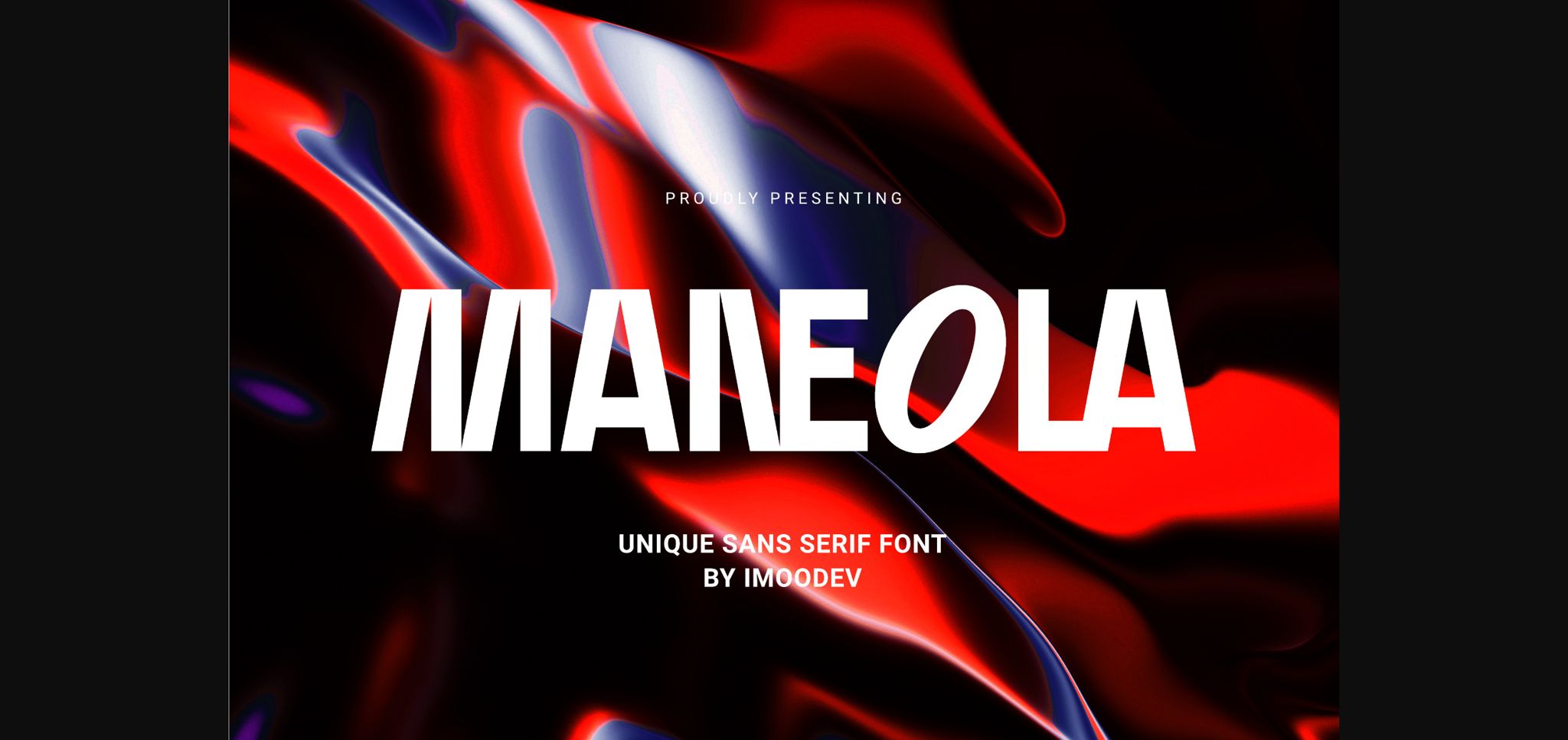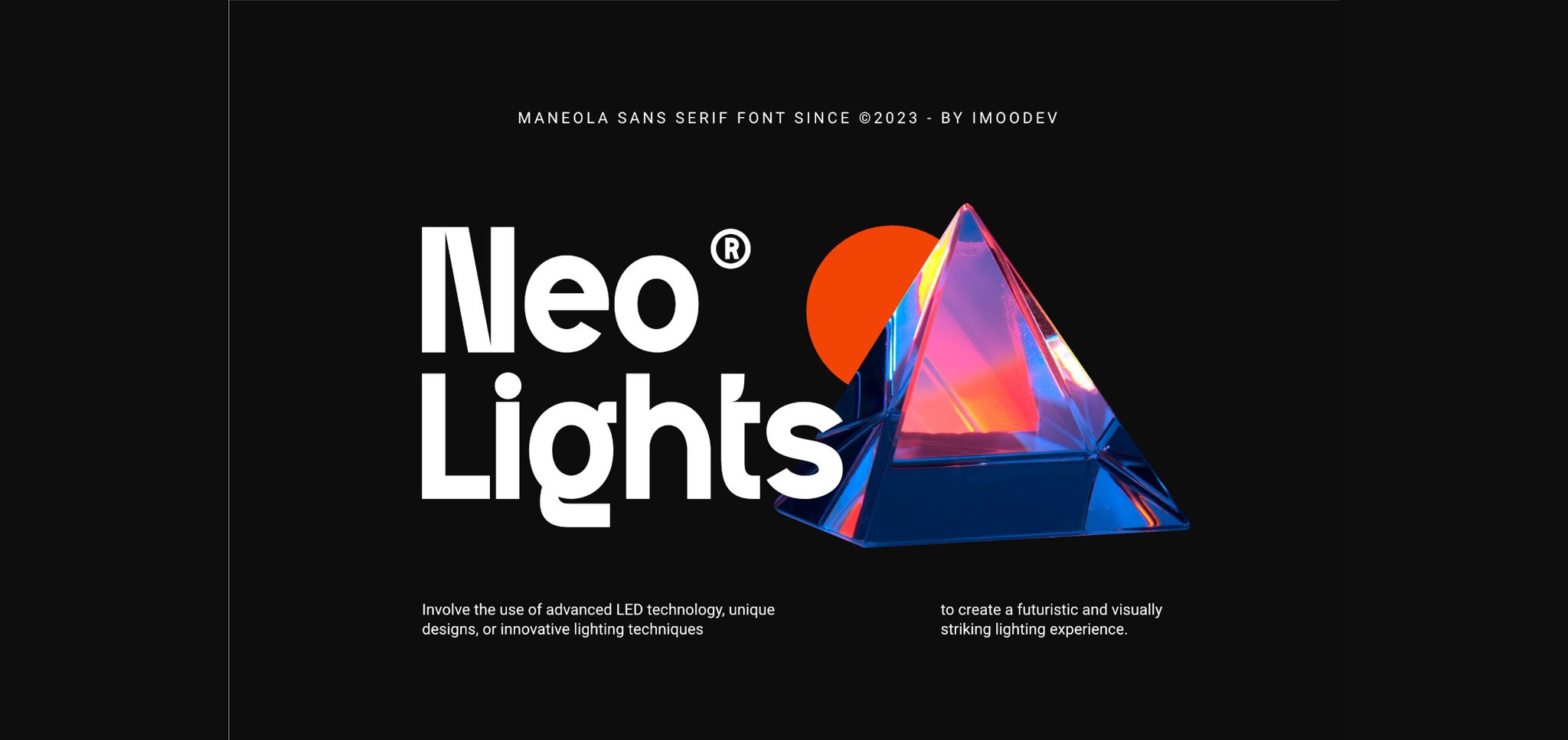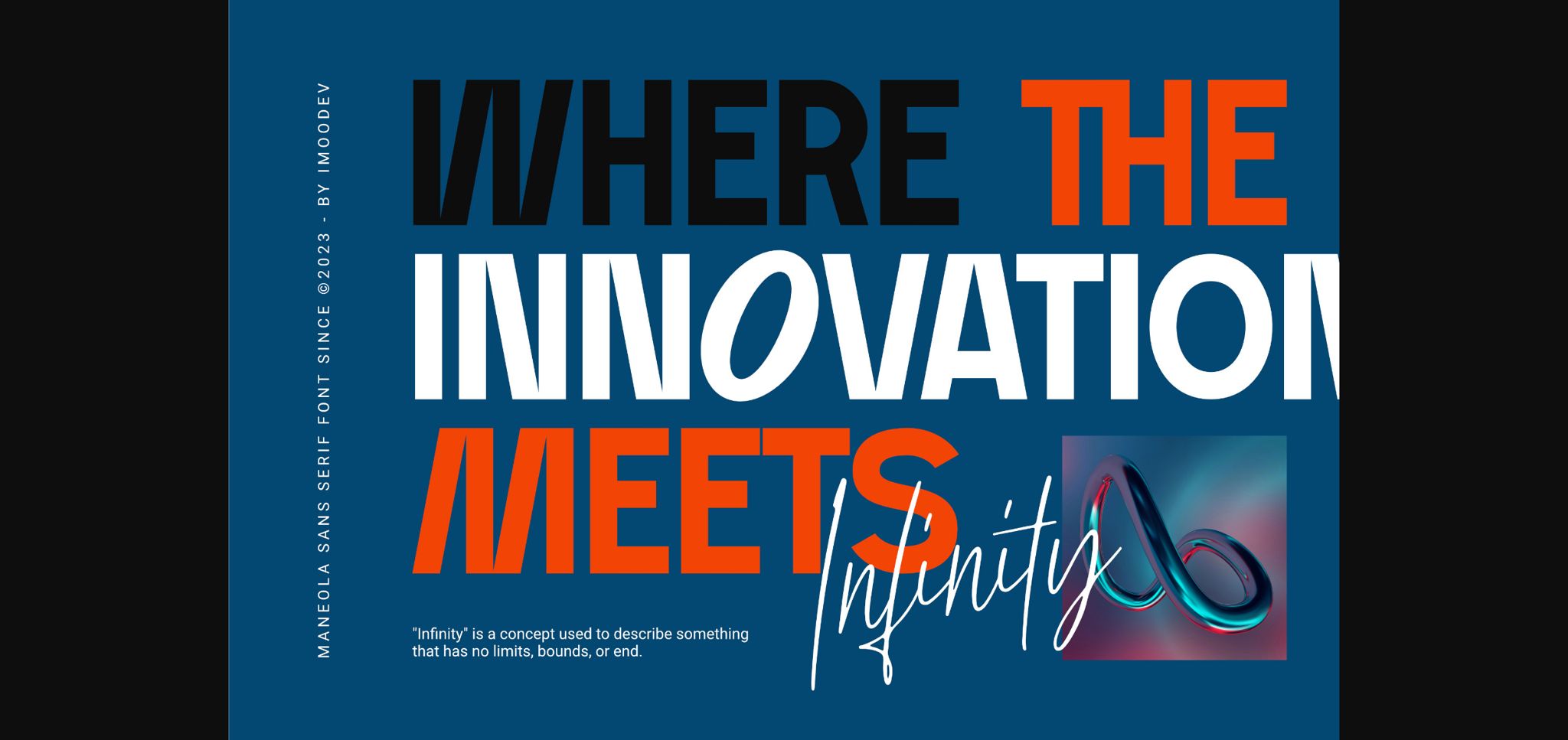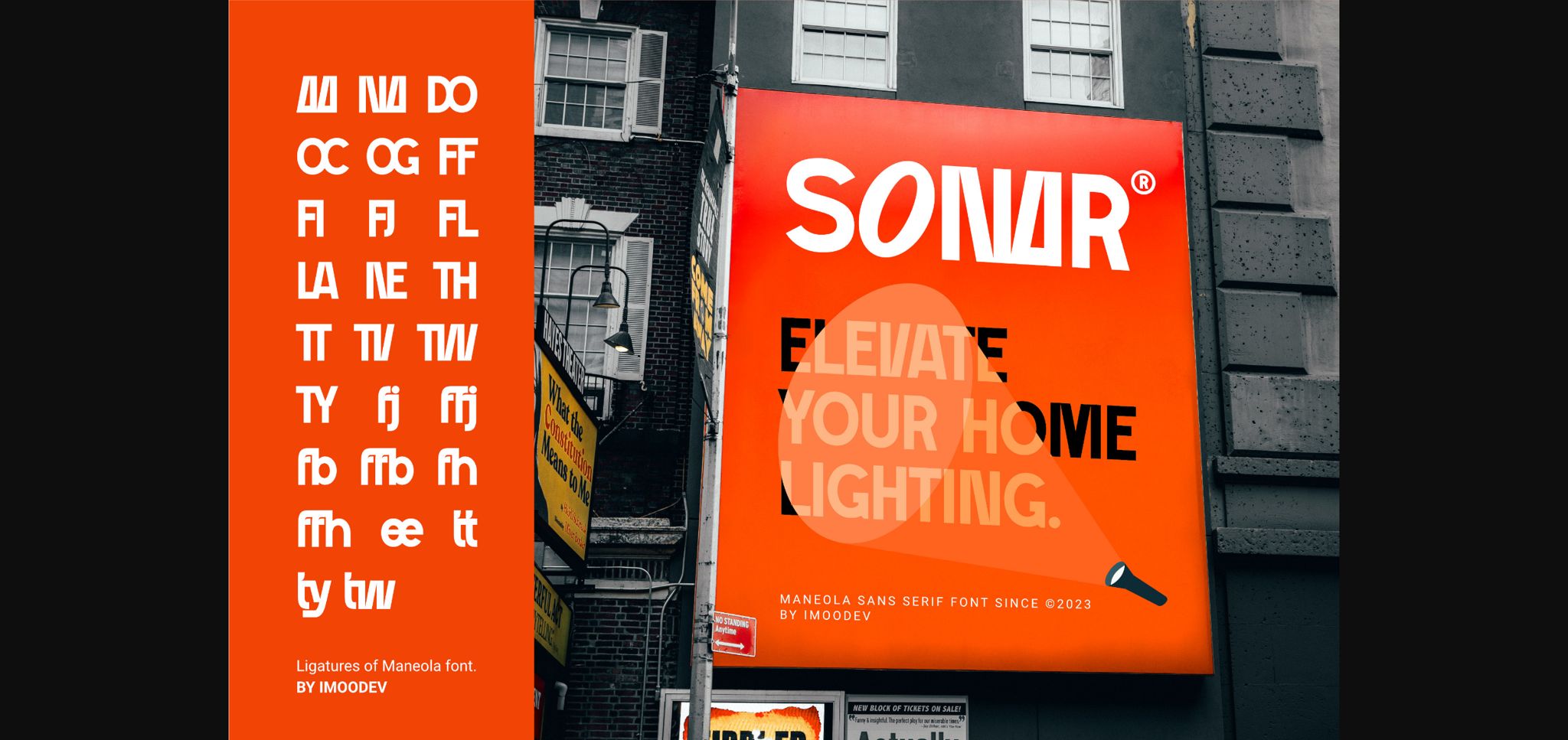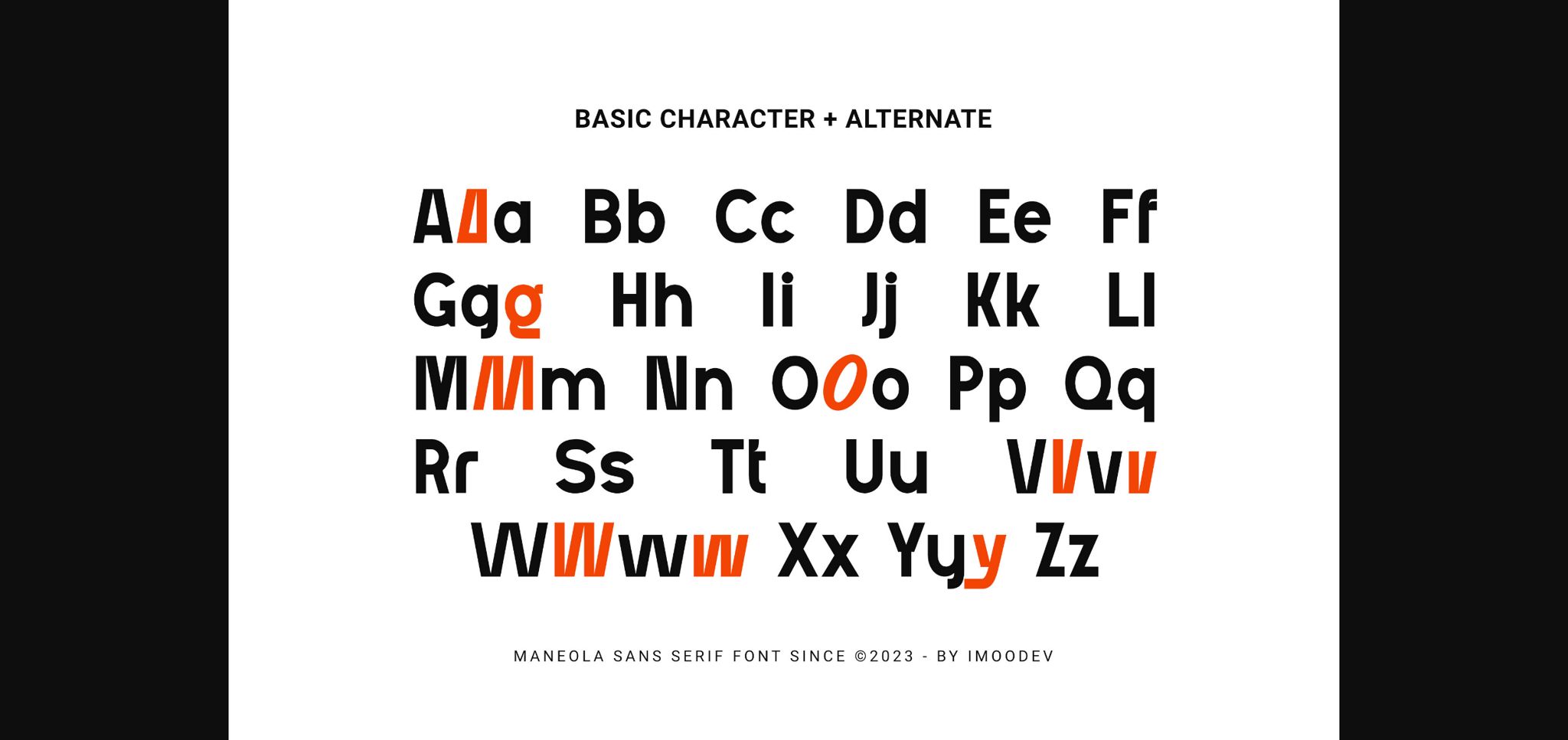
About Maneola Font
Maneola is a modern, unique sans serif font with a distinct character. Its clean lines and geometric shapes give it a sophisticated, yet unconventional appeal. Ideal for branding, editorial design, and websites, Maneola stands out with its contemporary elegance. From headlines to body text, this versatile font effortlessly captures attention and adds a touch of modernity to any project.